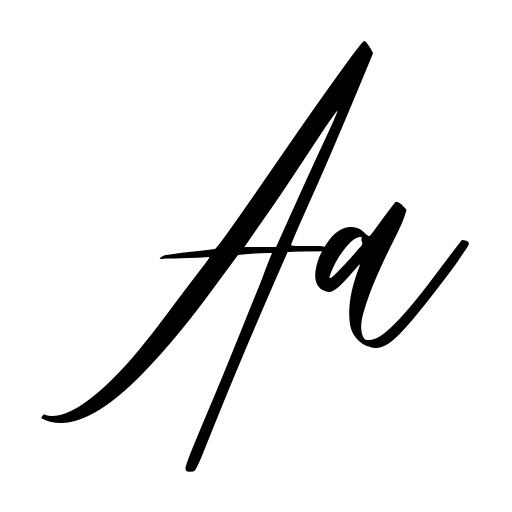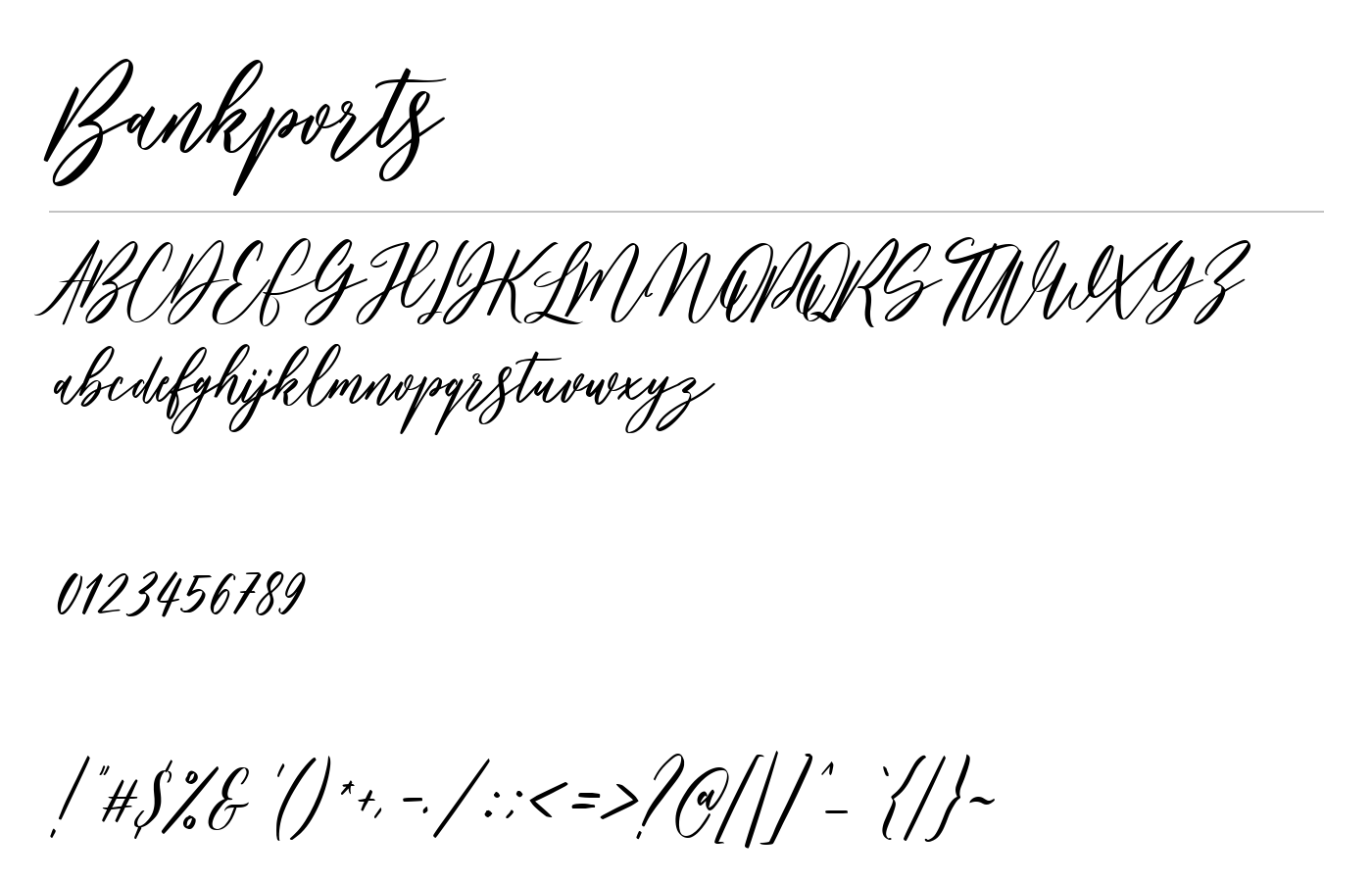
Bankports is an elegant, modern script font featuring fluid, dynamic strokes with varying thickness that mimic natural handwriting. Its tall, narrow letterforms and smooth connections convey a stylish, personal touch, making it ideal for branding, invitations, and sophisticated editorial projects. This font’s graceful yet lively appearance works beautifully for designs seeking a chic, refined, and approachable vibe.
Bankports Font